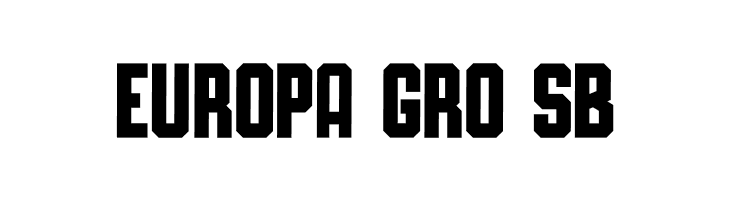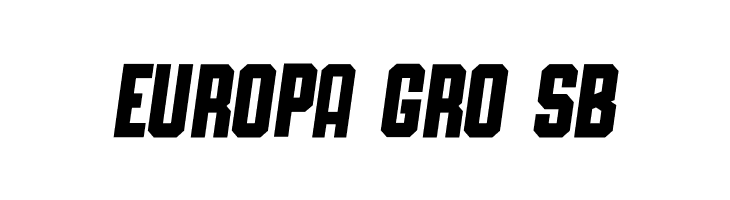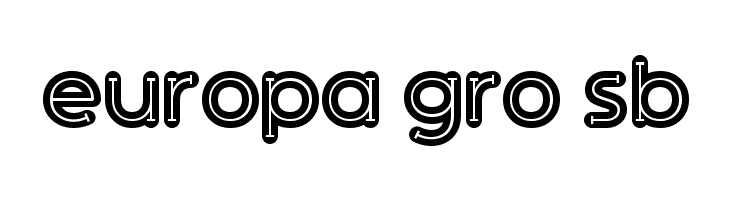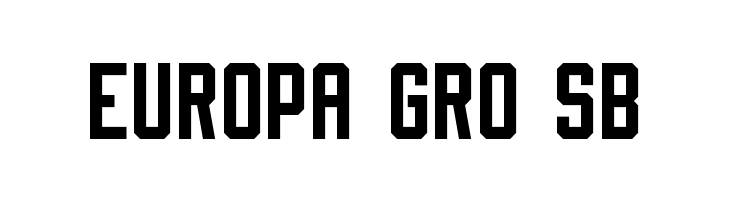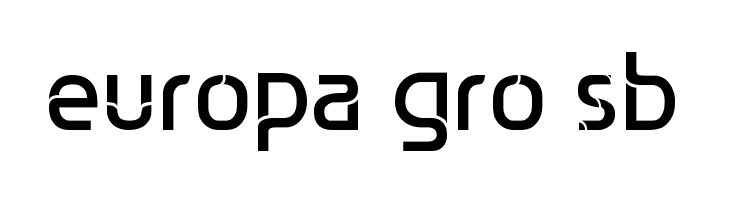
A bold, outlined font with a modern, geometric style.
A bold, jagged font with a dynamic, slashed effect.
A bold, edgy font with sharp angles and a rebellious style.
A bold, geometric font with strong, angular lines ideal for impactful text.
A bold, italicized font with a dynamic and modern style.